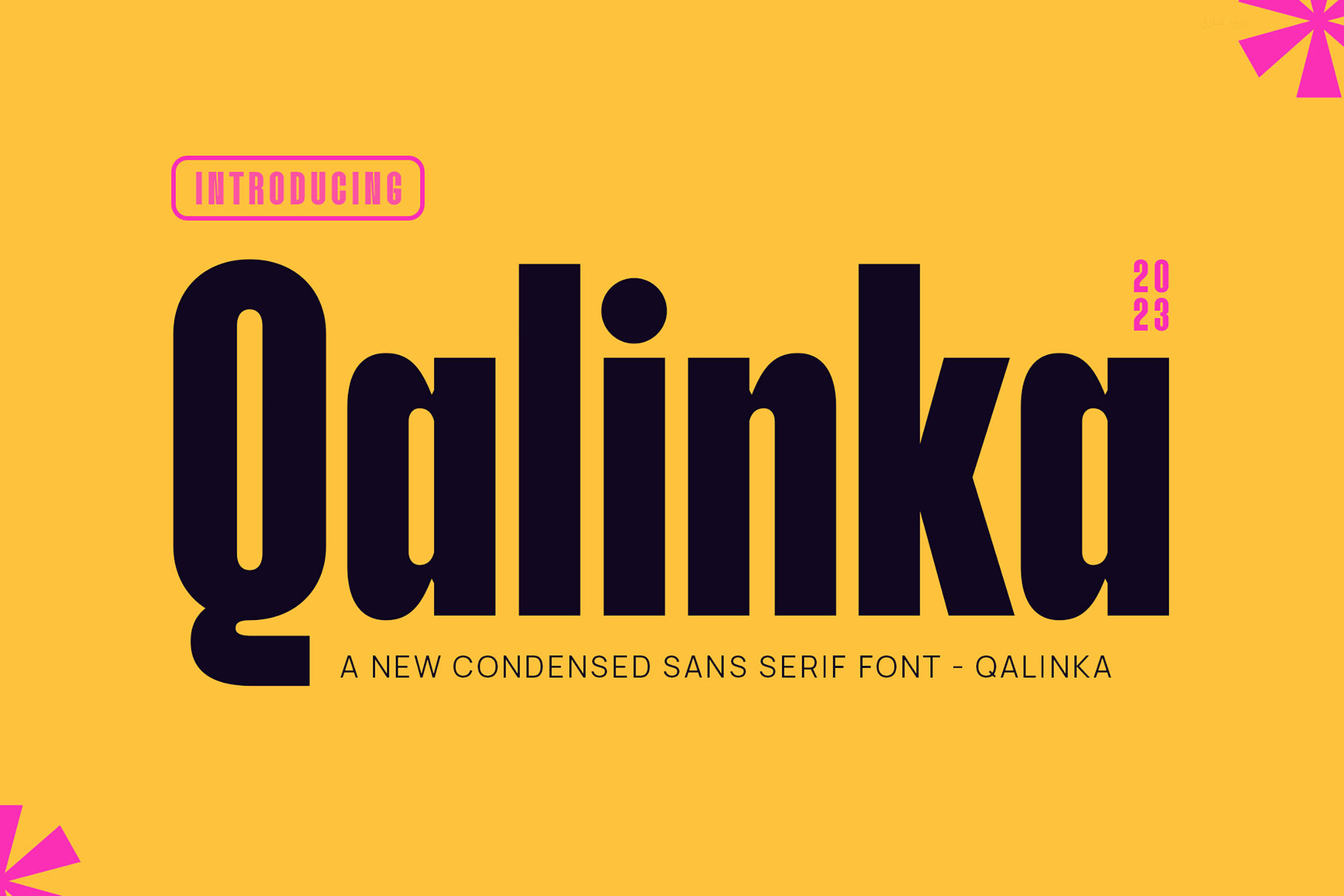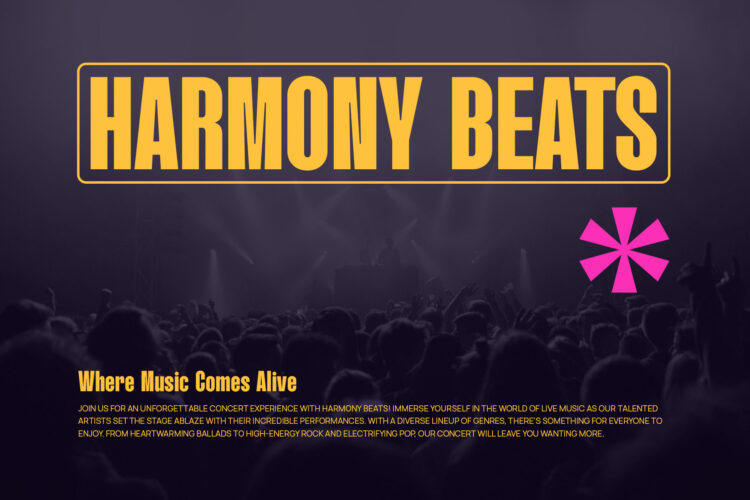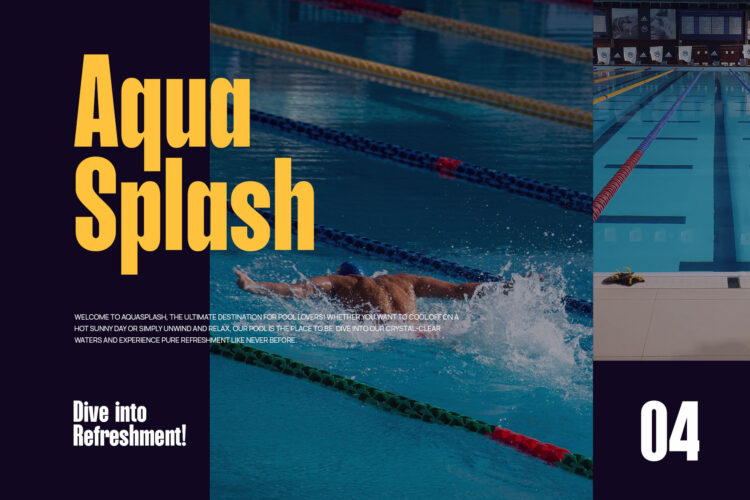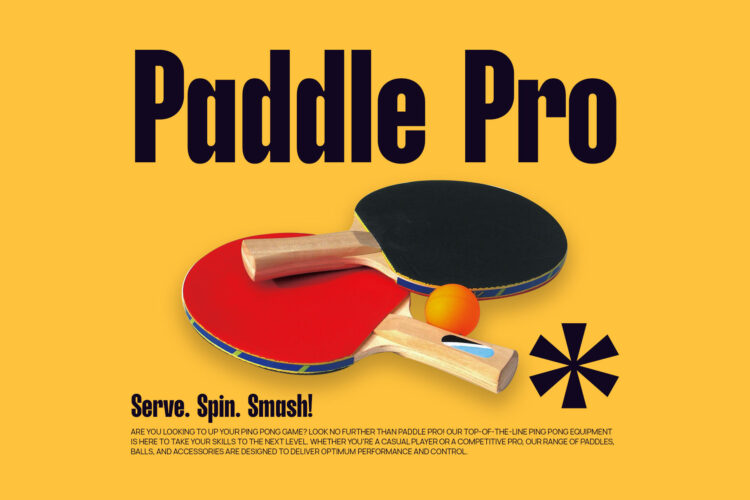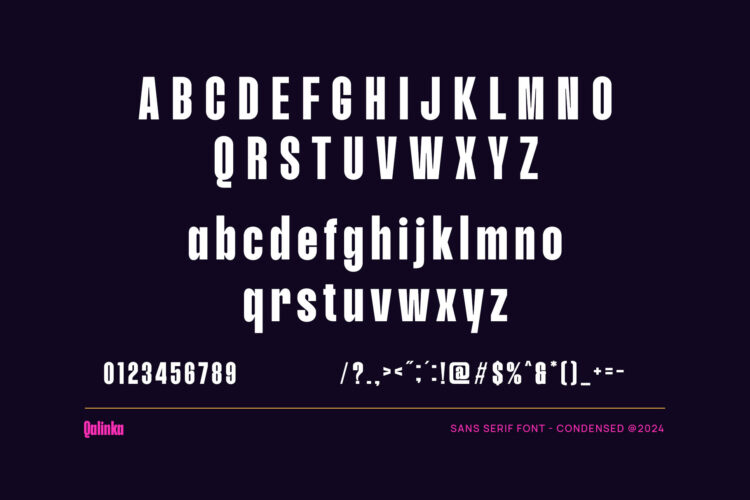
Introducing our new Qalinka, modern sans serif font with elegant style this is perfect for branding, logos, invitation, magazines, product packaging and more.
Qalinka - Modern Condensed Sans Serif